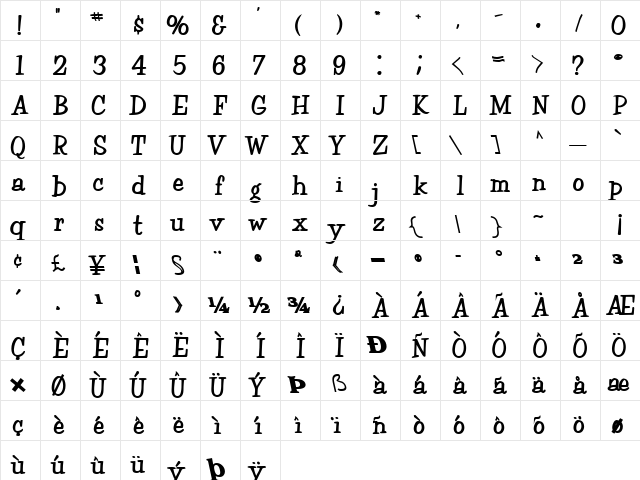
PC Winter Weather Regular Font Preview
PC Winter Weather Regular
PC Winter Weather Regular Font Details
Design Context for PC Winter Weather Typeface
PC Winter Weather is a composed and adaptable typeface that performs quietly and consistently across a wide range of design contexts.